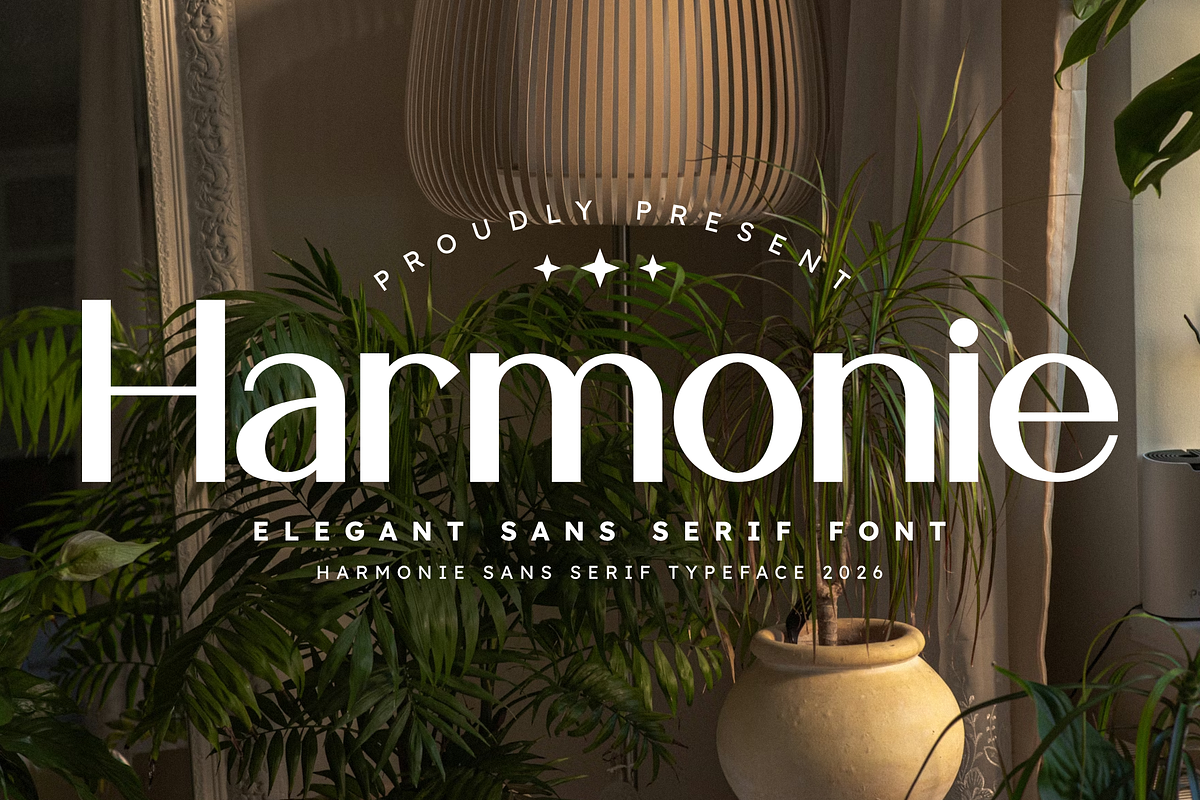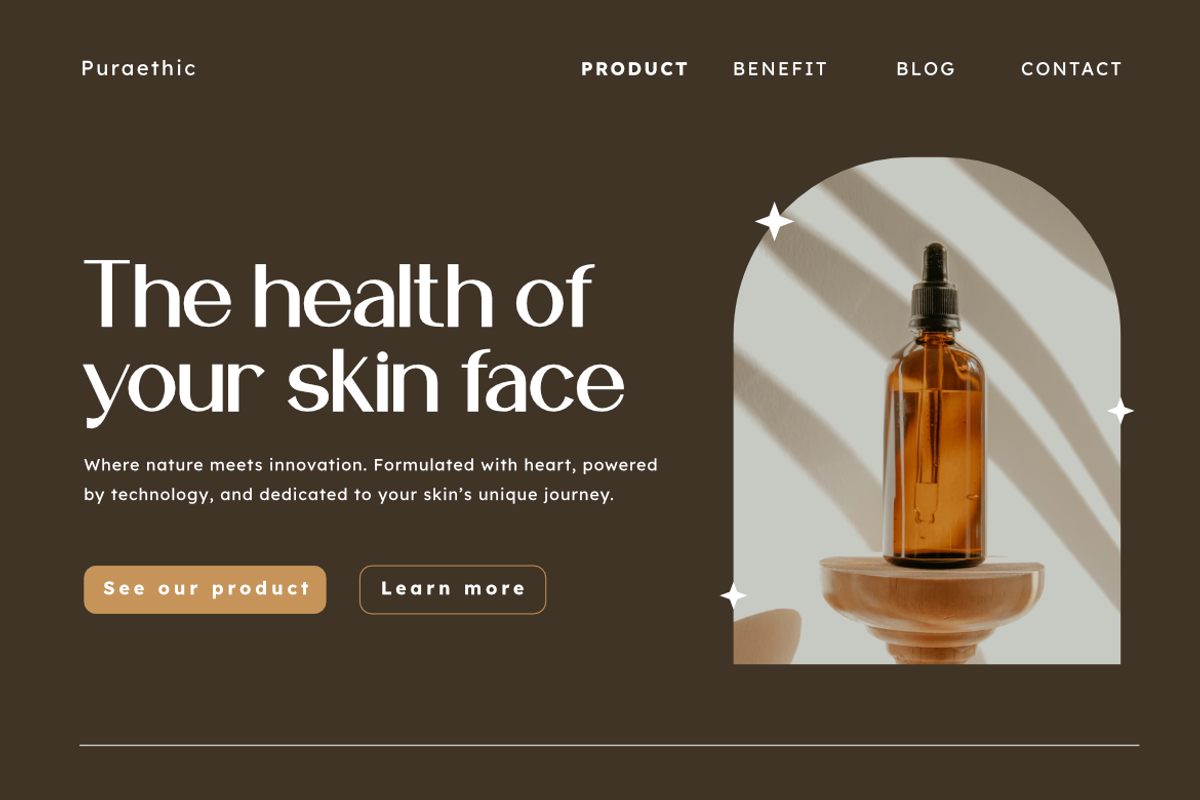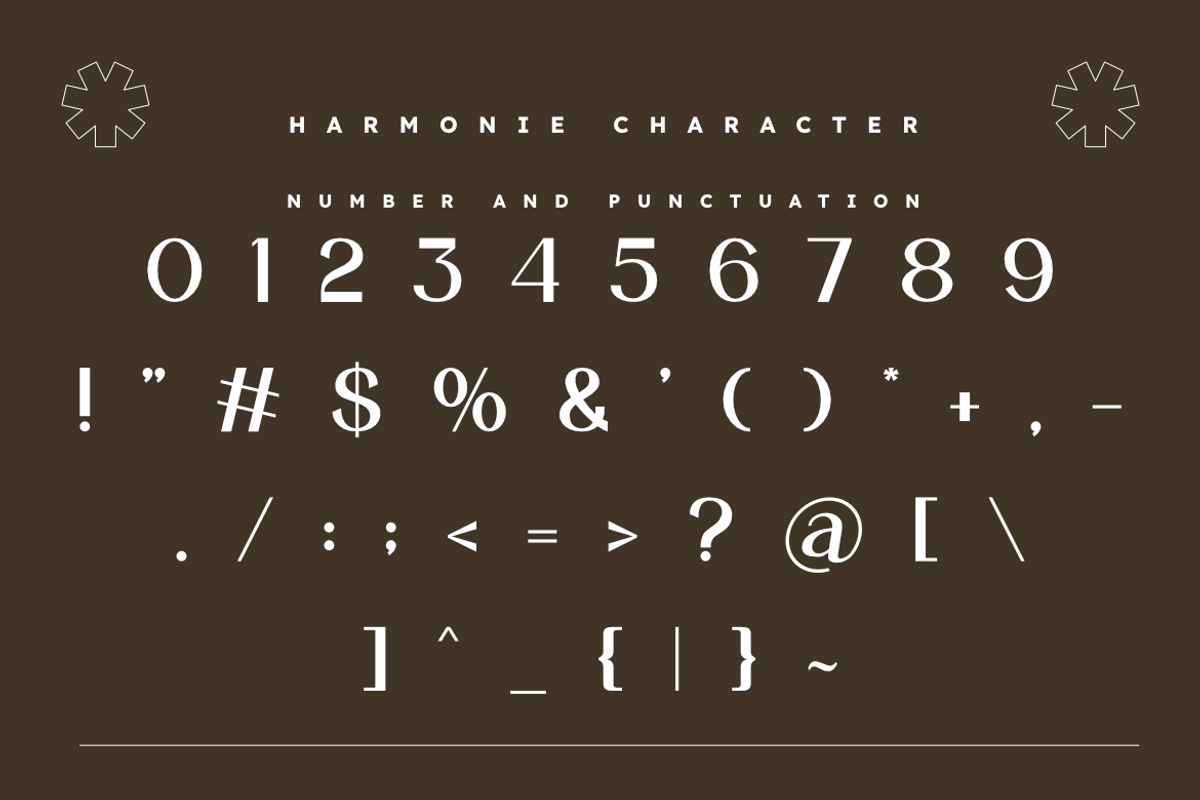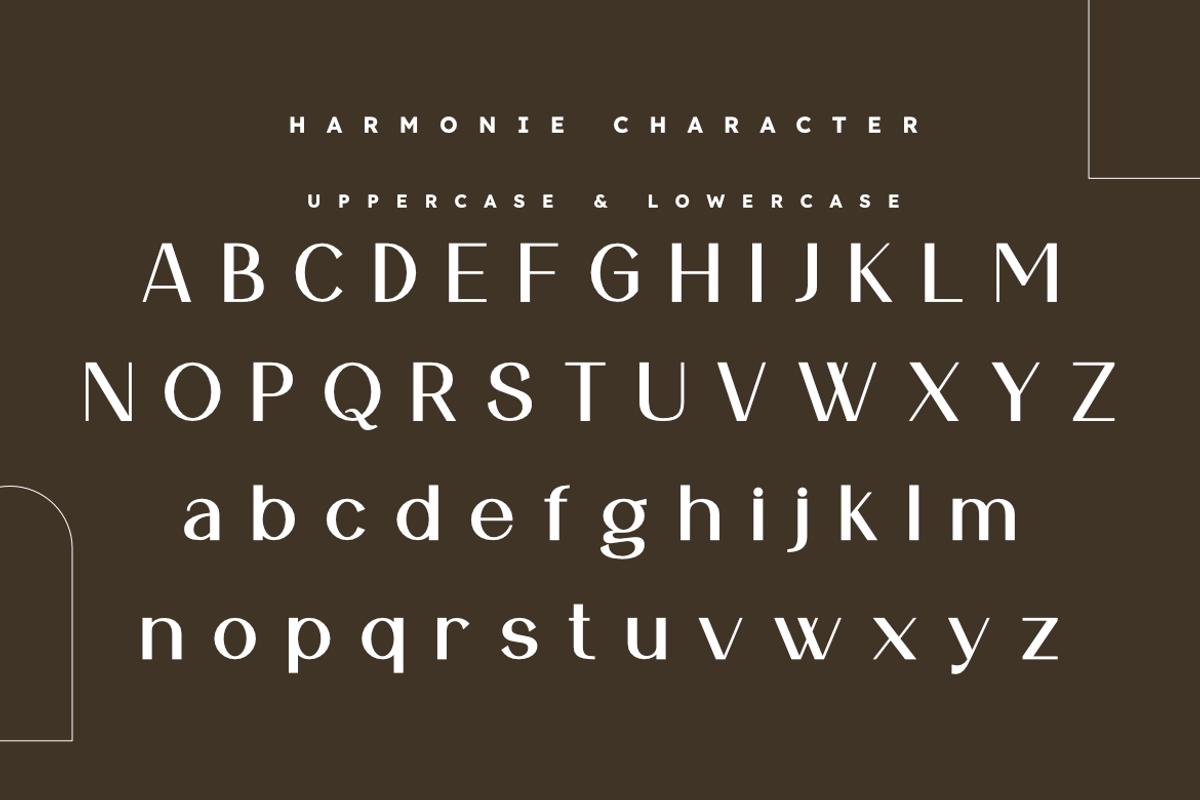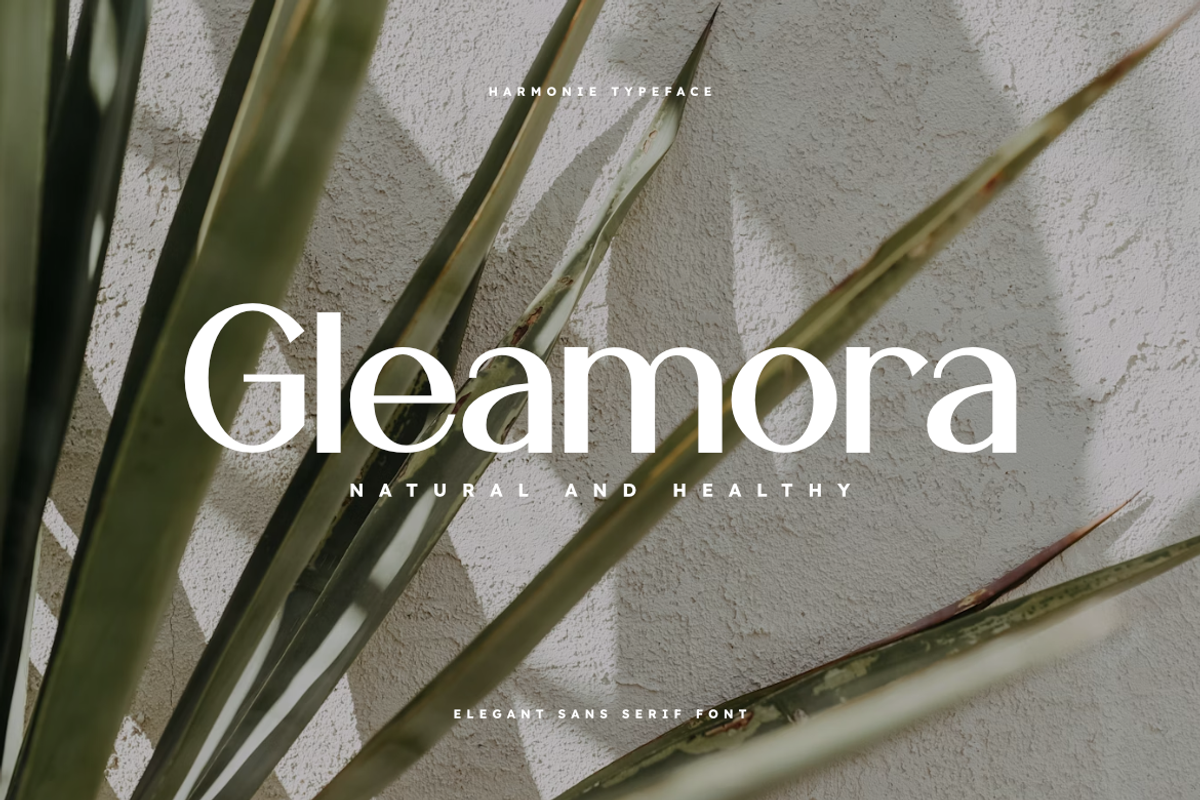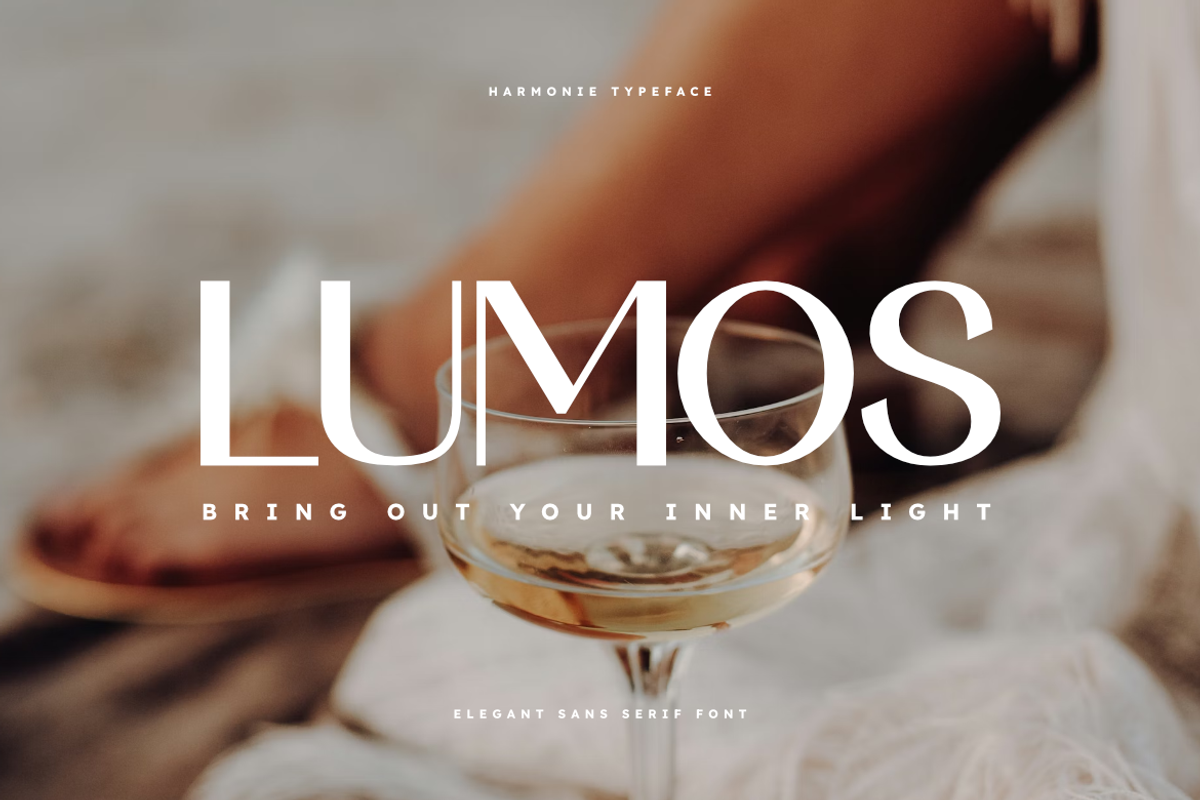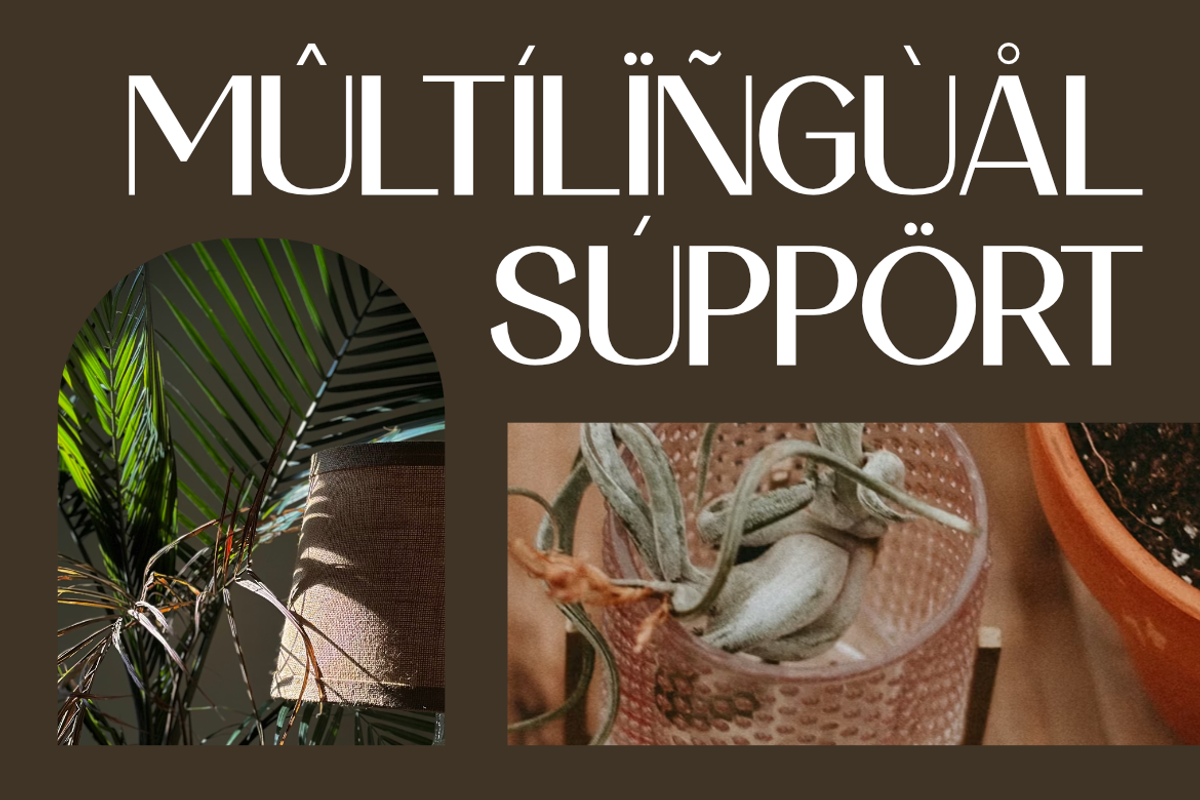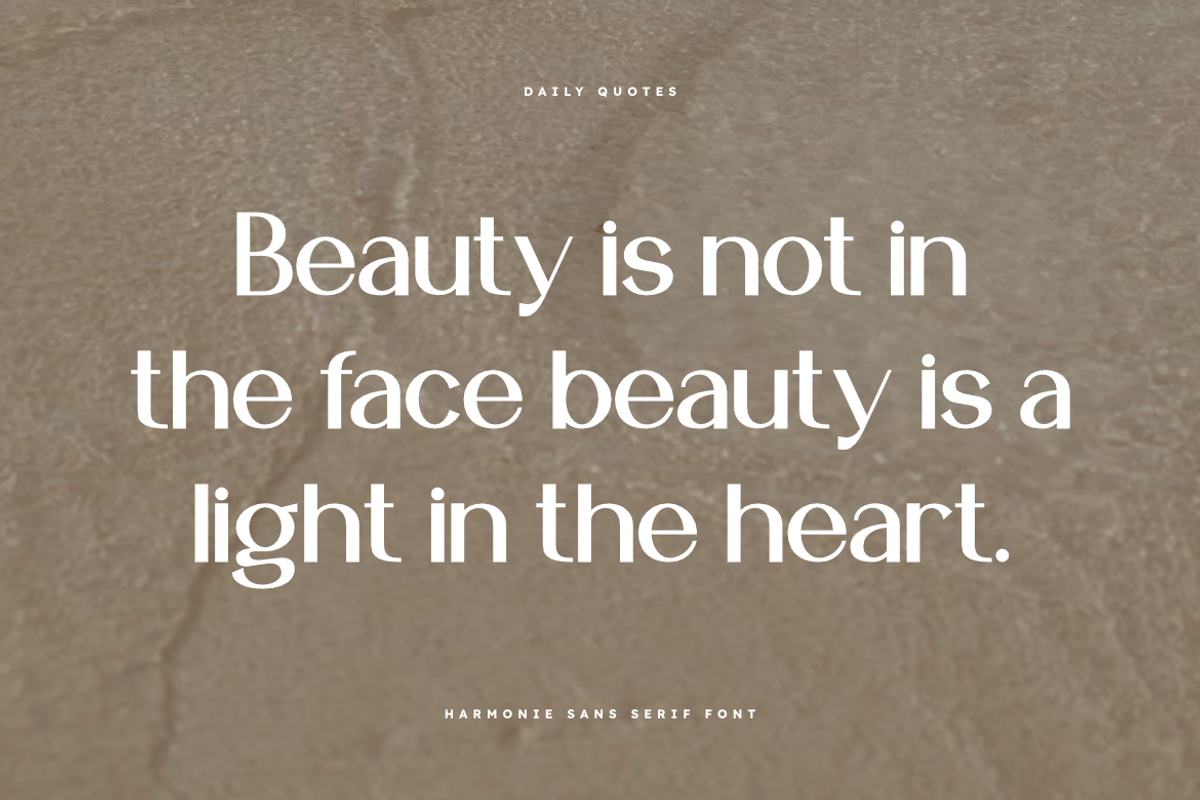
Harmonie | Elegant Modern Sans Serif
Harmonie is a sophisticated sans serif typeface that masterfully blends modern minimalism with elegant, refined details. Designed for projects that require a touch of class and balance, this font features clean lines and a harmonious structure that ensures excellent readability across various media.
Whether you are crafting a luxury brand identity, a high-end magazine layout, or minimalist digital content, Harmonie provides a polished and timeless aesthetic. Its versatile nature makes it an essential addition to any designer's toolkit.
Main Features:
- Elegant and Modern Sans Serif design.
- Clean, balanced, and highly legible.
- Perfect for luxury branding, interior design, and editorial layouts.
- Includes multilingual support for global accessibility.